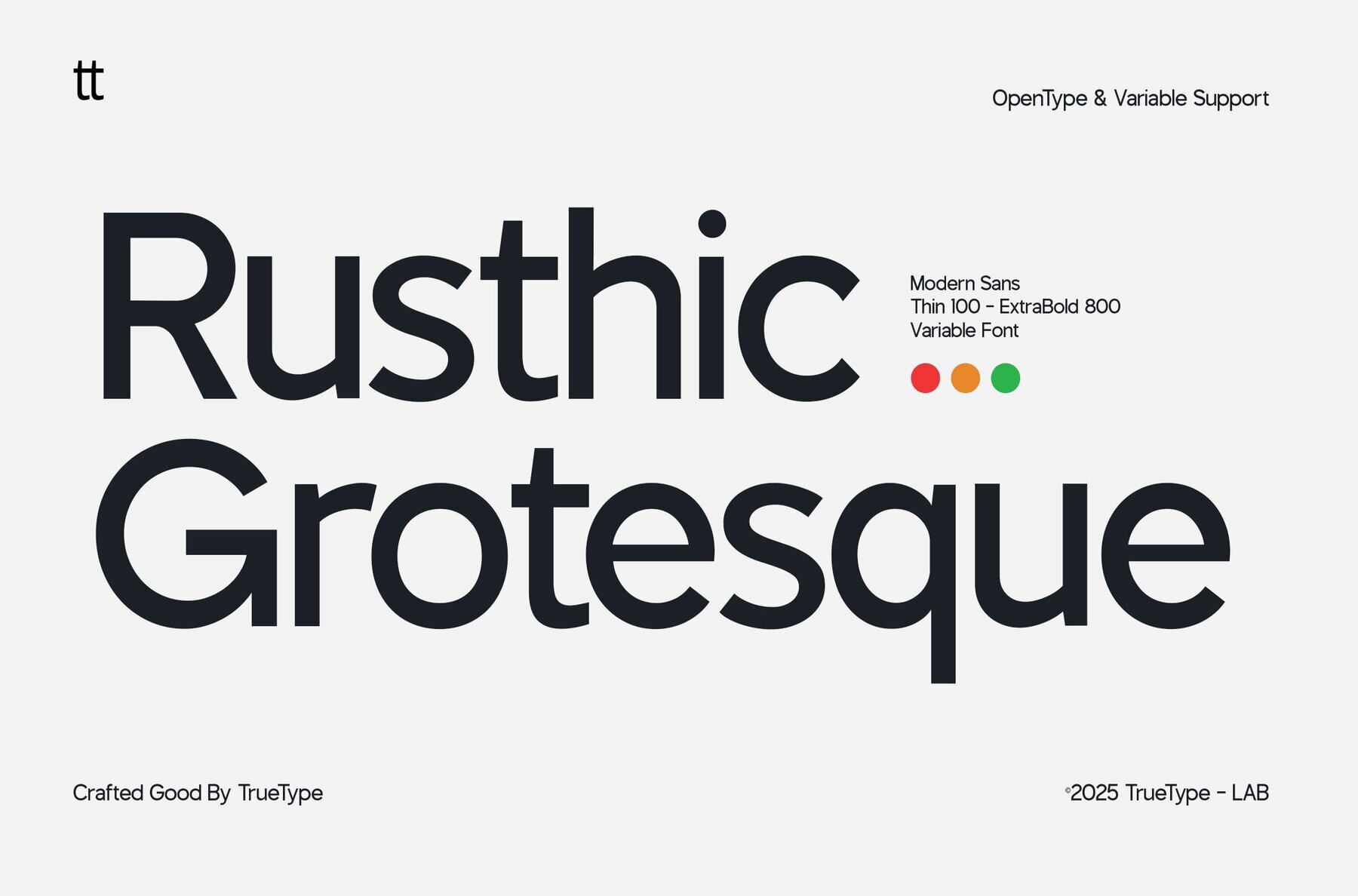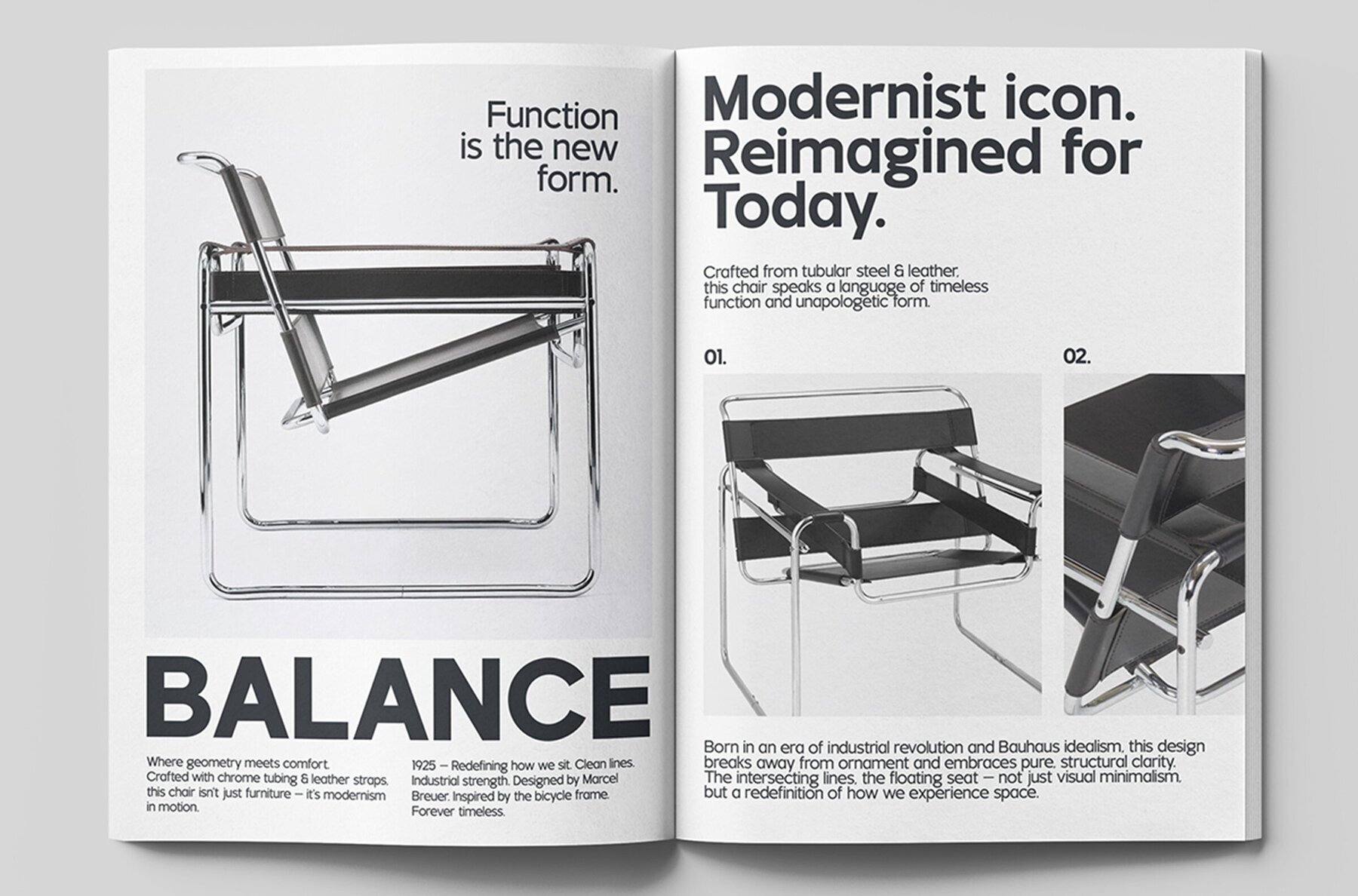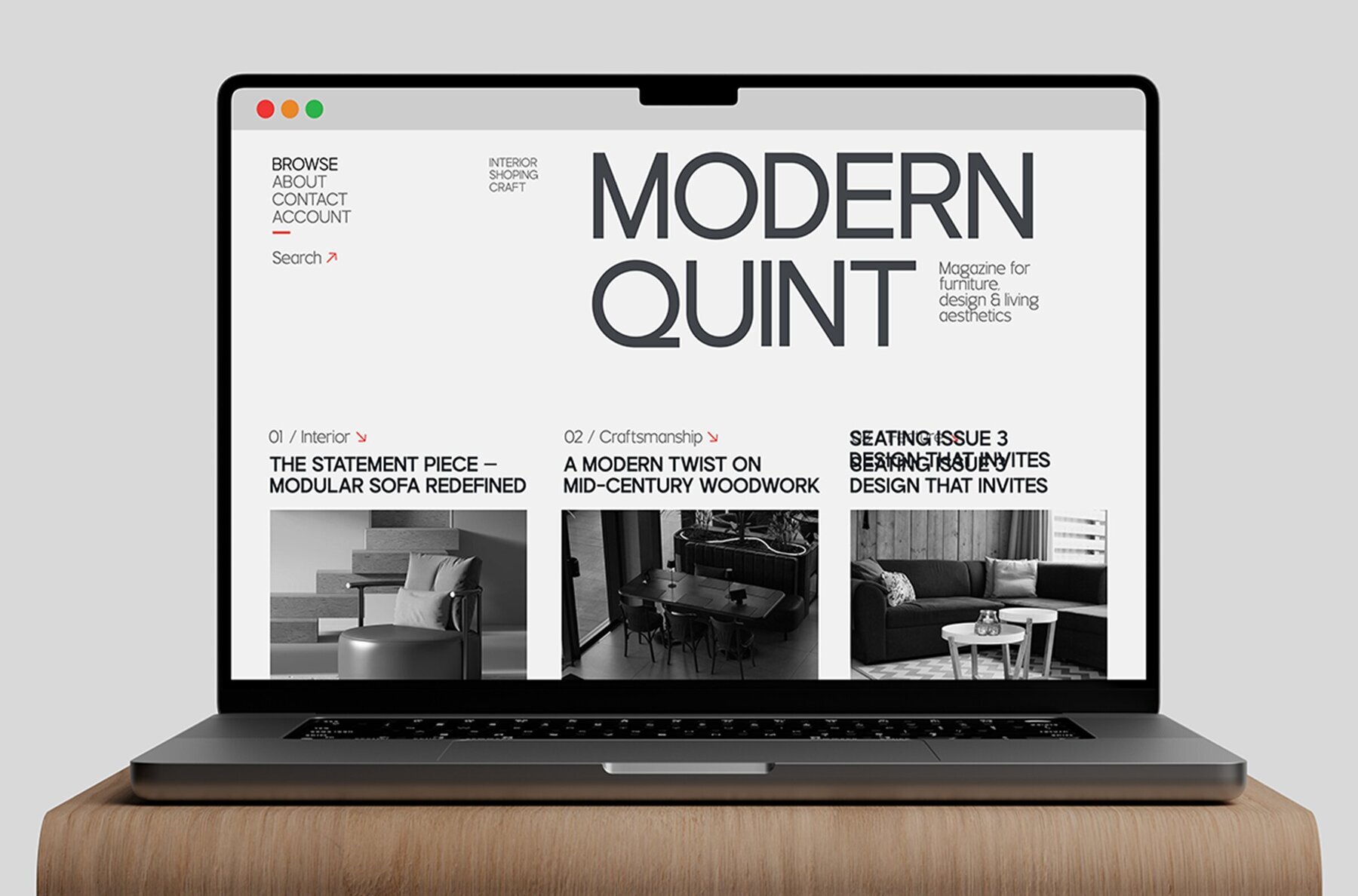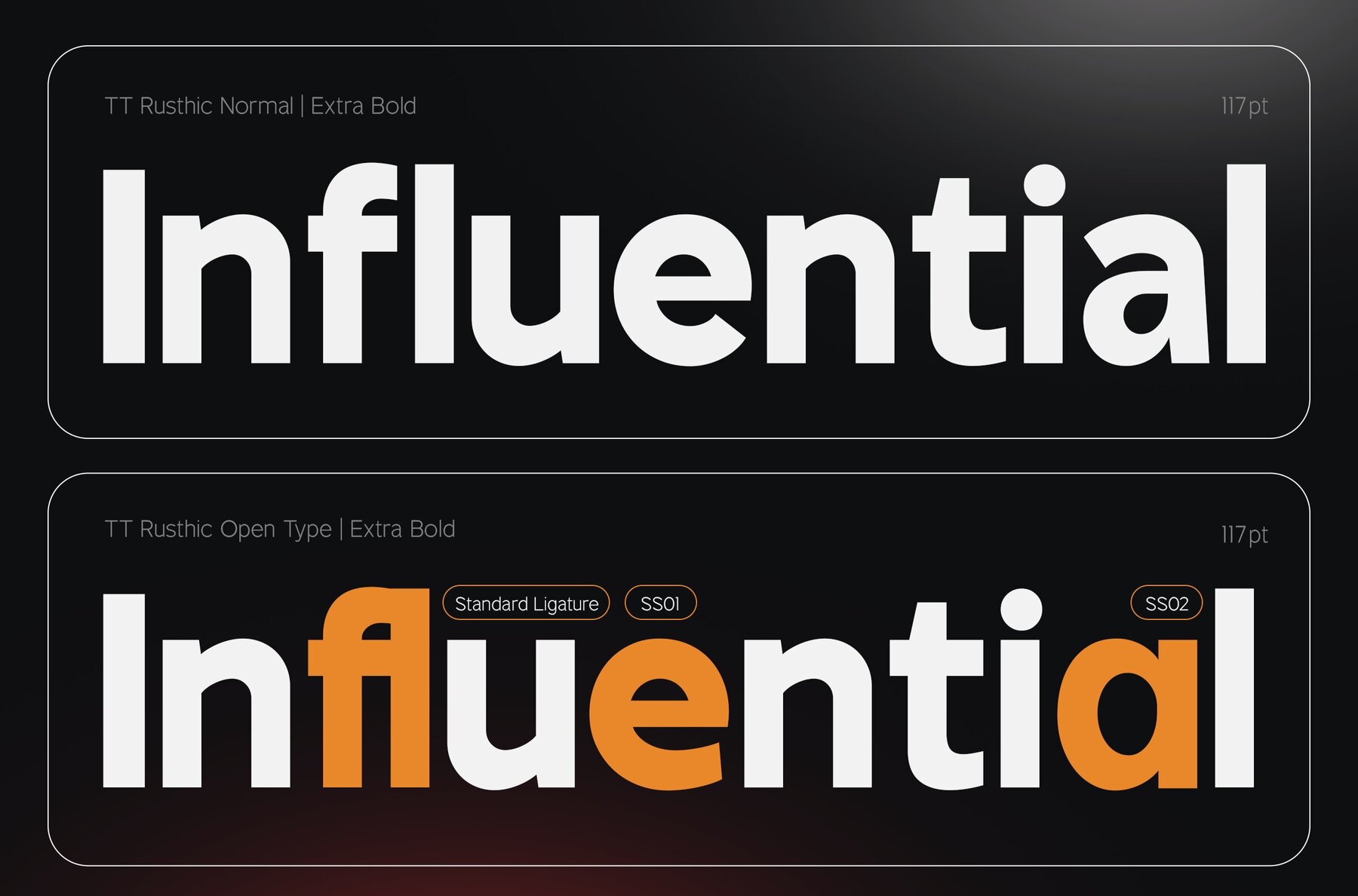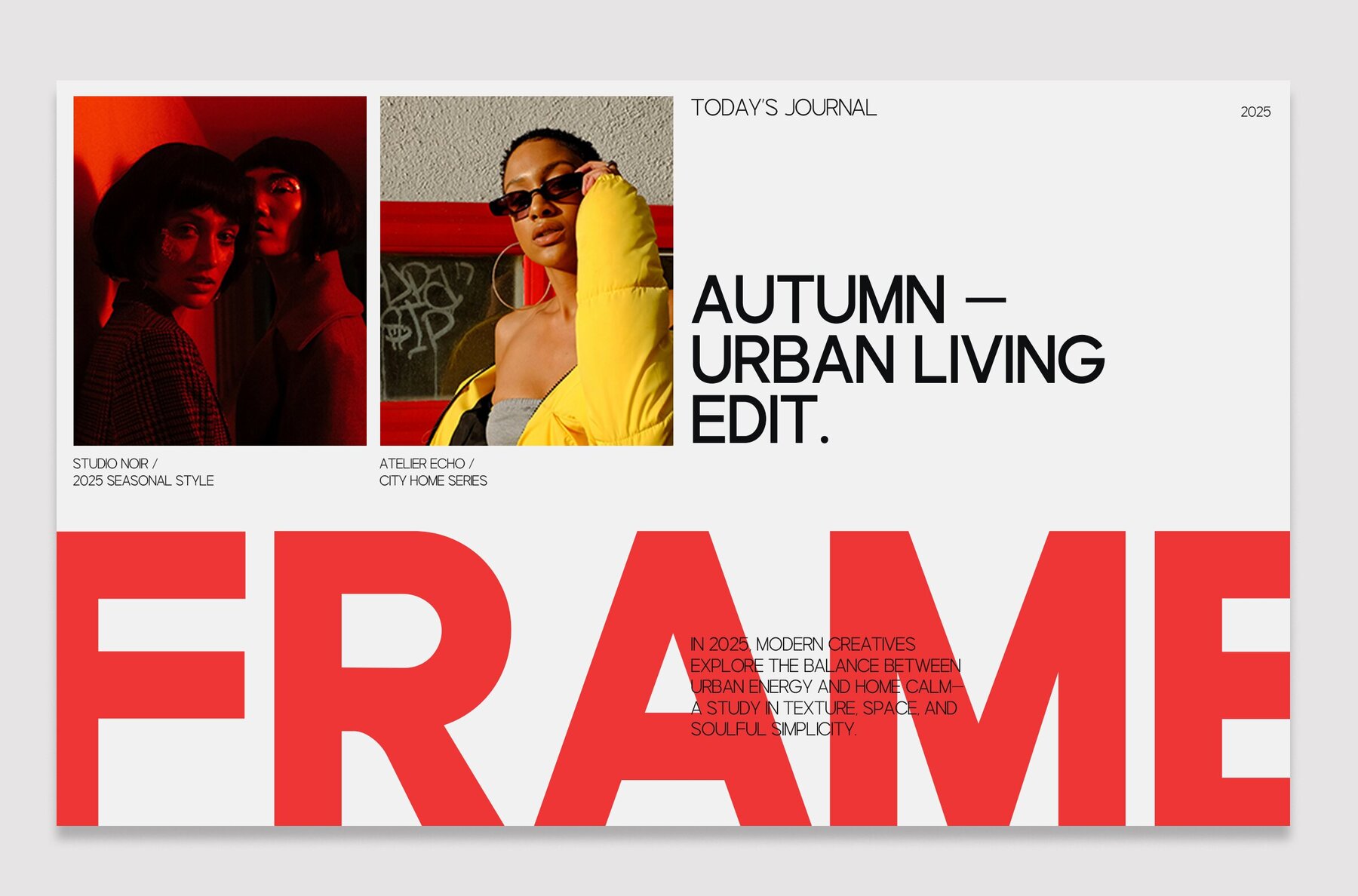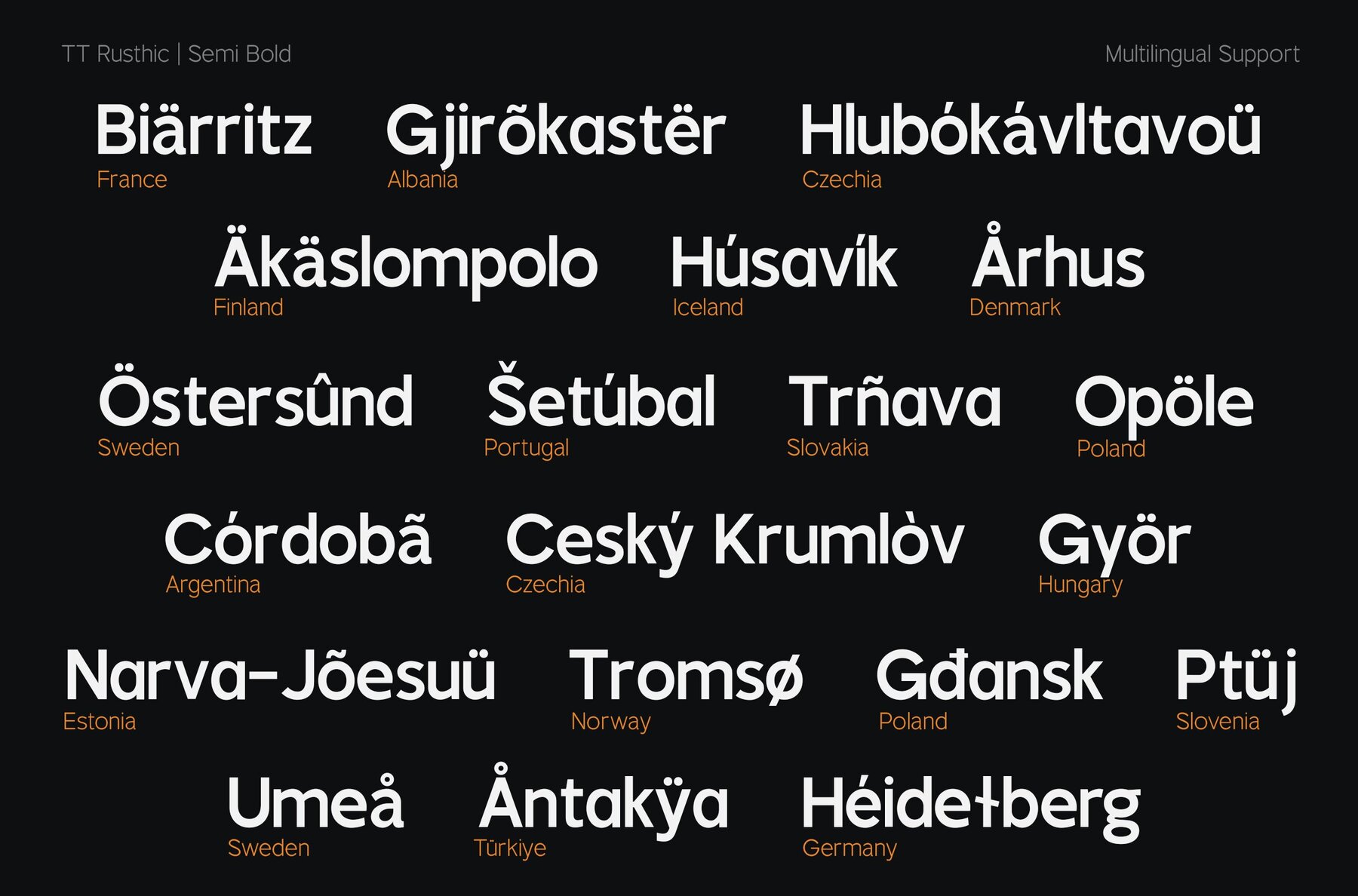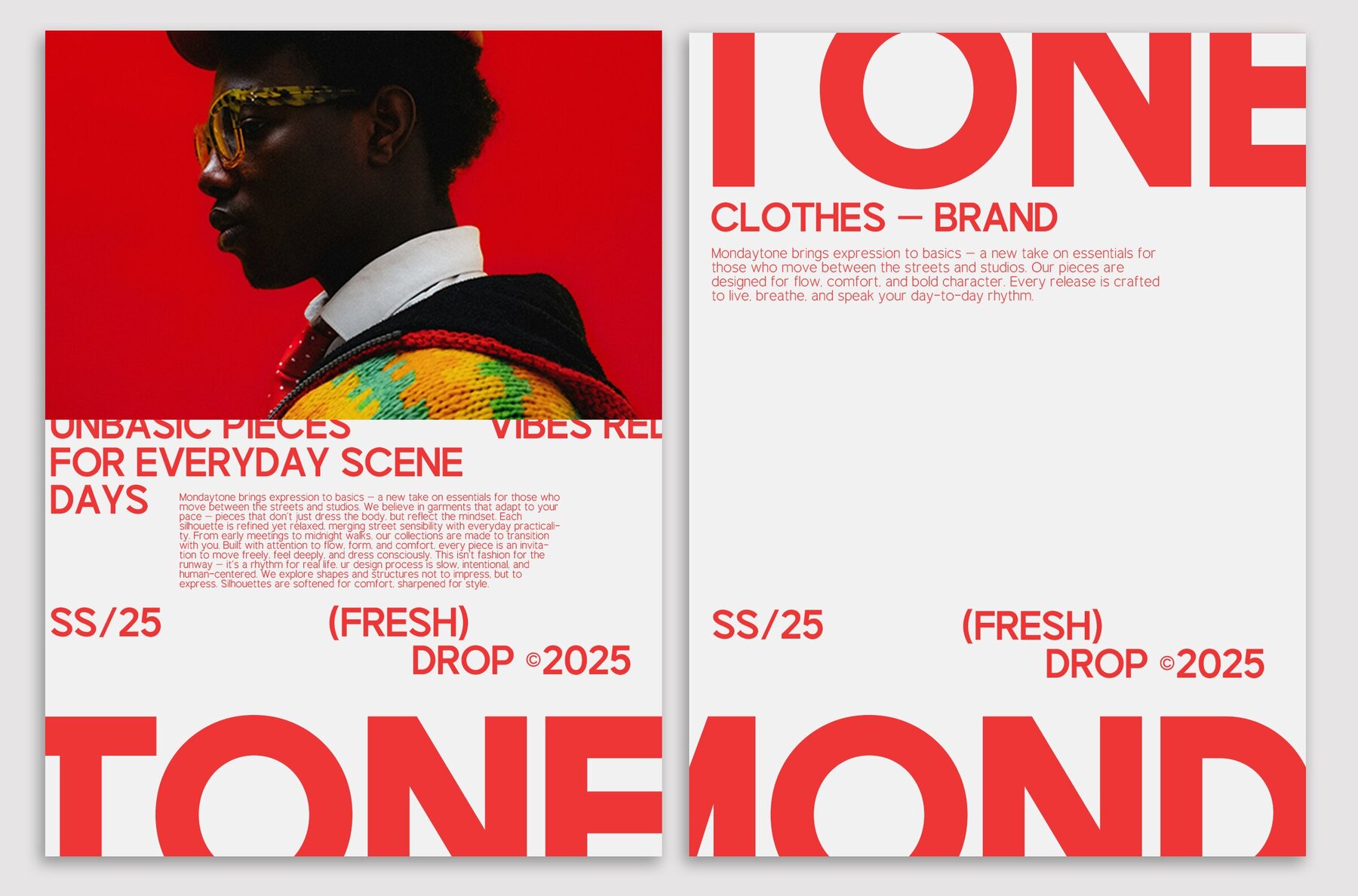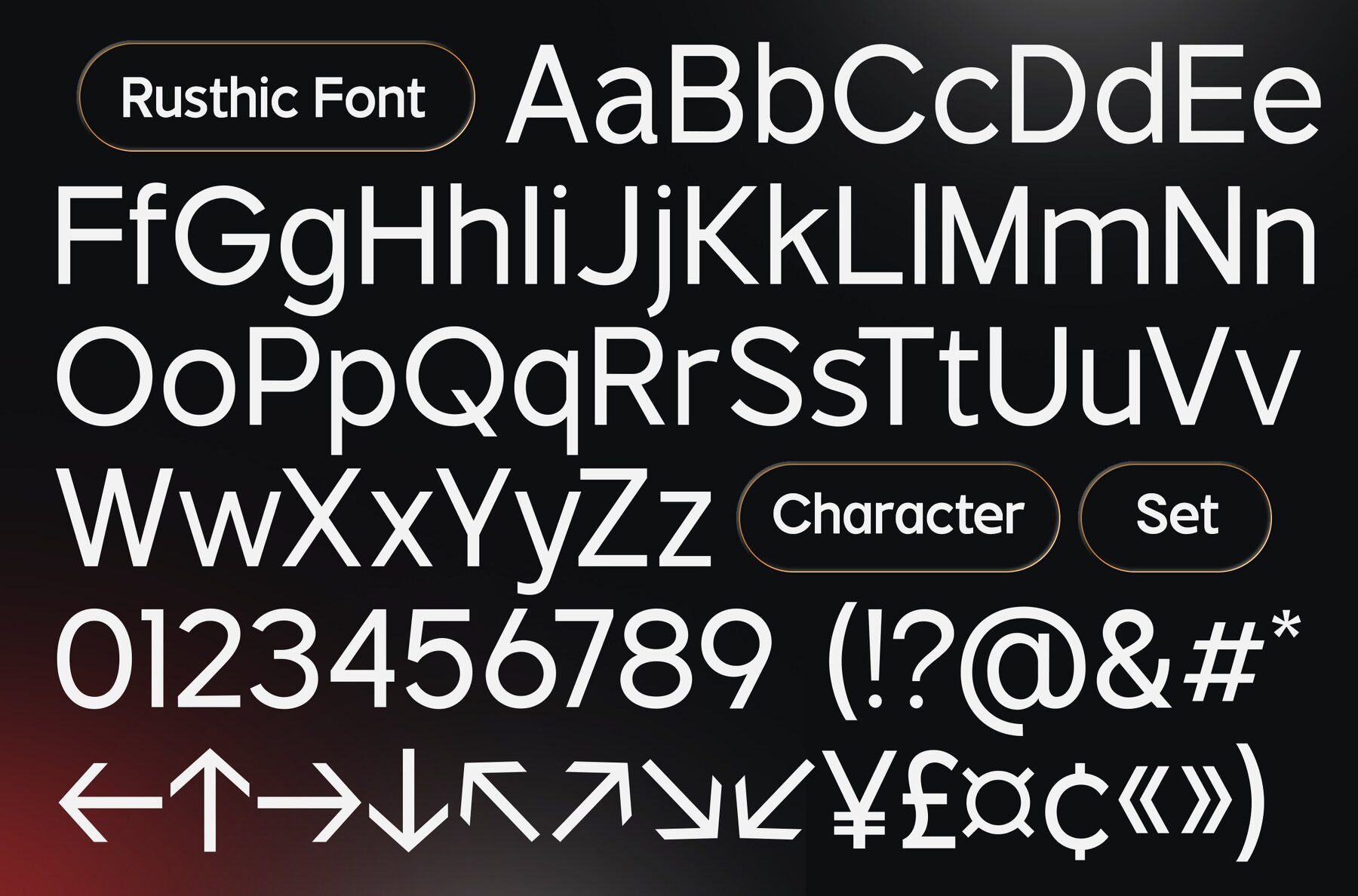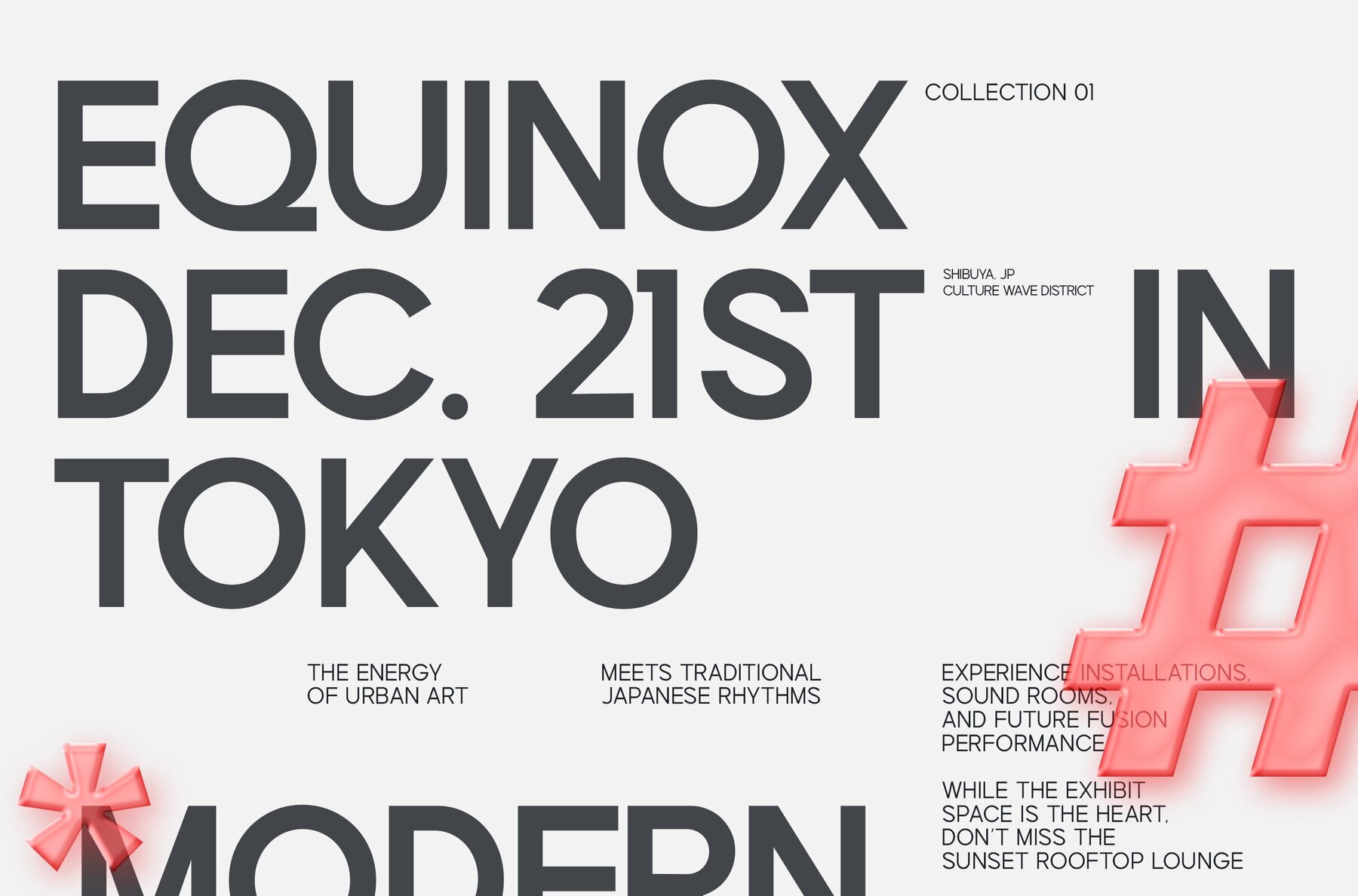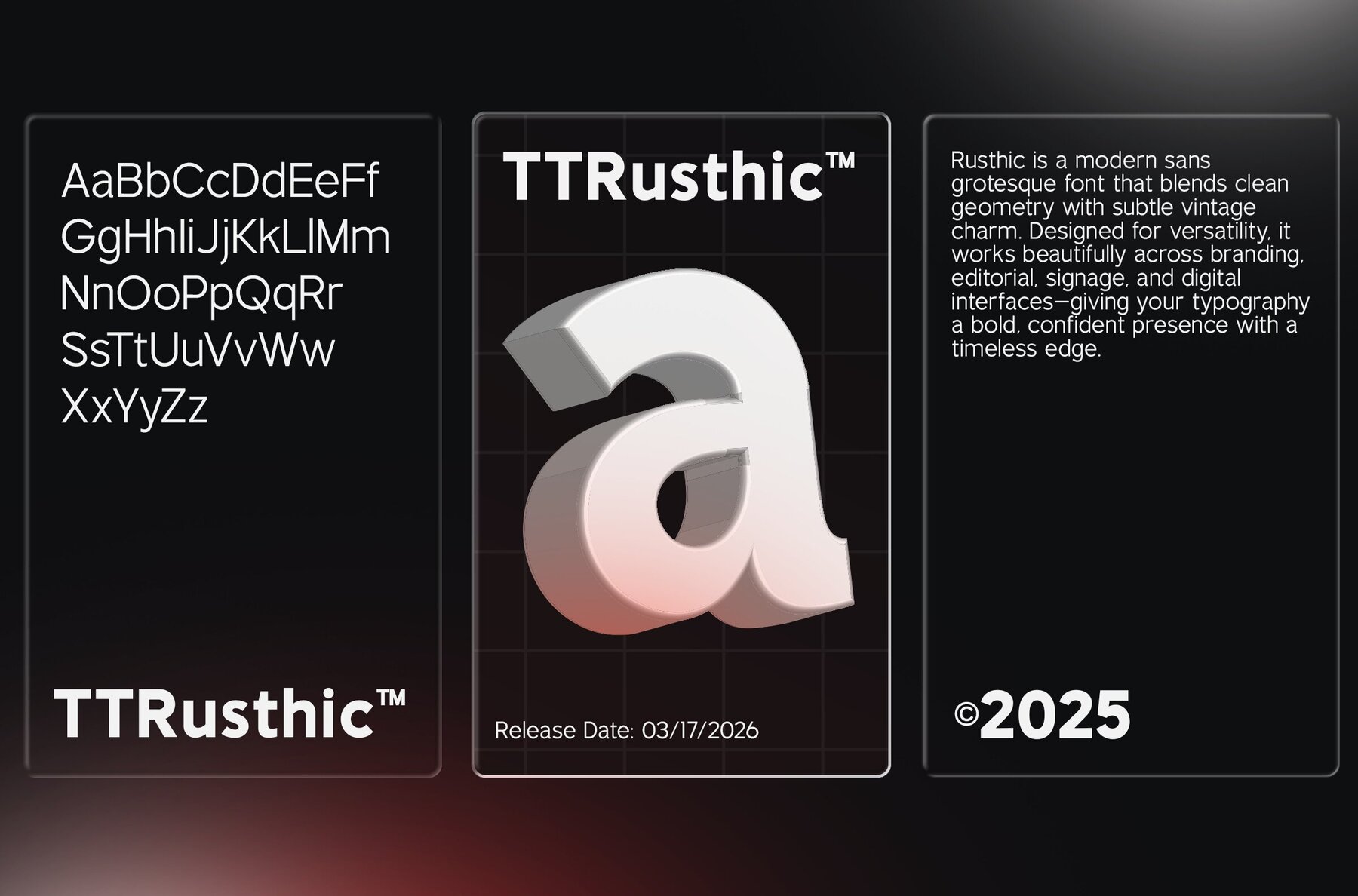
TRT Rusthic Font
TRT Rusthic delivers clarity and contemporary character in a versatile sans-serif family. Designed for visual precision, this typeface stretches from Thin to ExtraBold, making it suitable for a spectrum of purposes—from commanding headlines to refined user interfaces. Its modern, grotesque style presents clear curves, consistent spacing, and geometric balance. The open letterforms and gentle flow contribute to excellent readability. Distinctive without distraction, TRT Rusthic enables design work that is both professional and approachable. The extensive weight range supports graphical flexibility, helping designers calibrate tone across branding, editorial layouts, web content, and packaging systems. With refined simplicity and reliable performance, TRT Rusthic stands as an adaptable tool for creative professionals seeking thoughtful, contemporary typography.TRT Rusthic: Modern Grotesque Sans-Serif With Expansive Weight Range